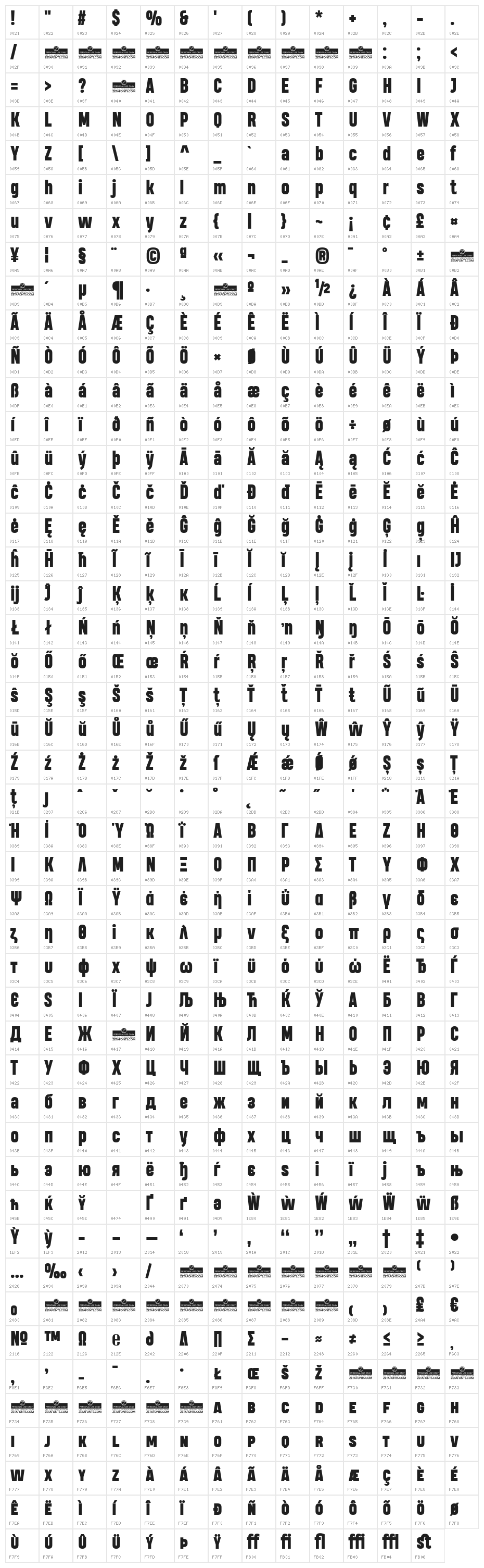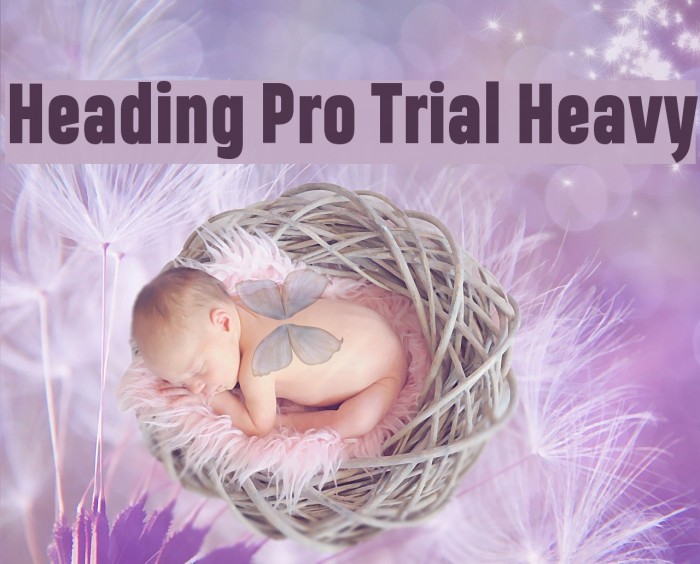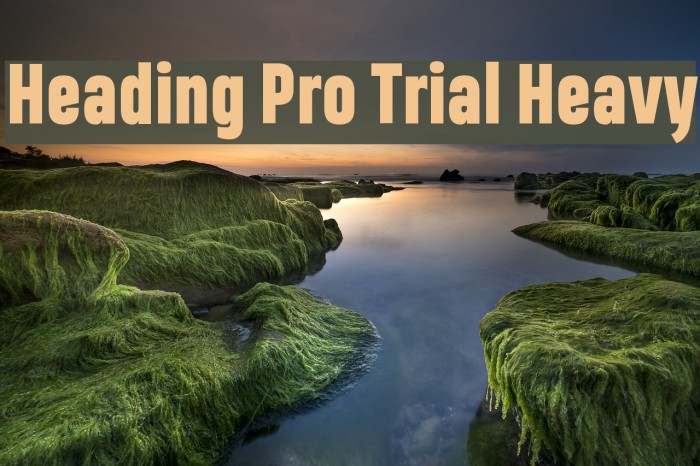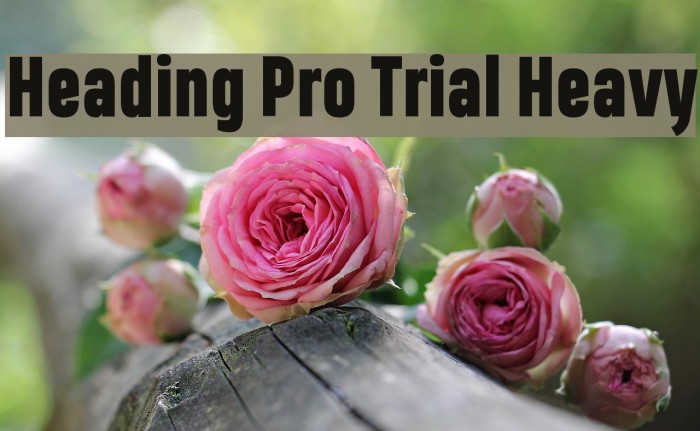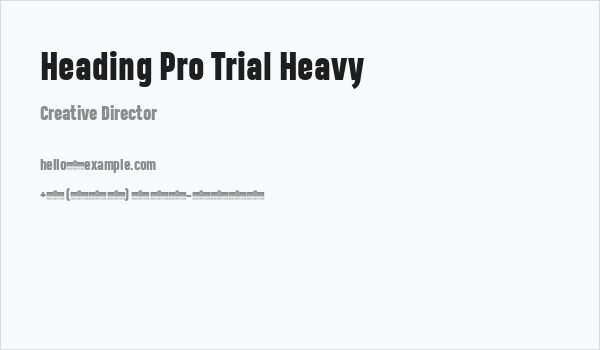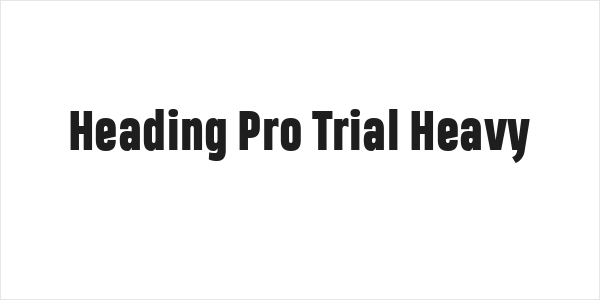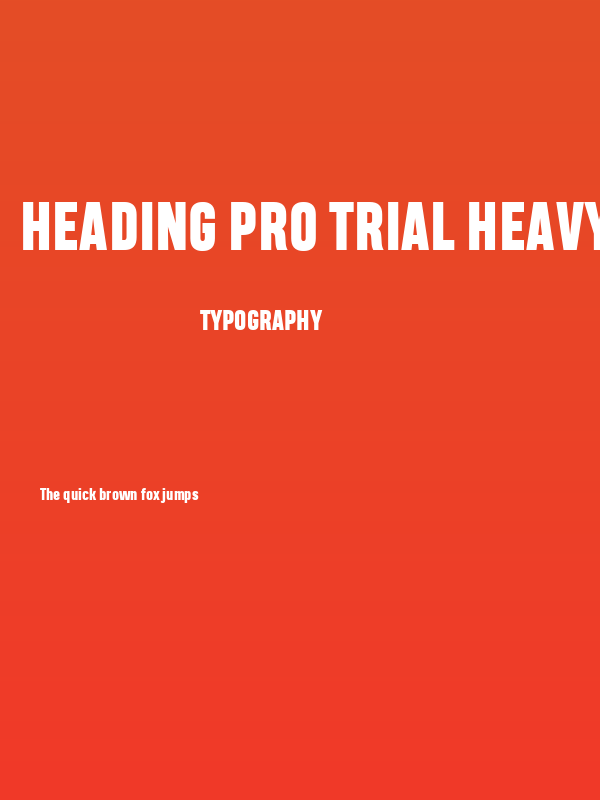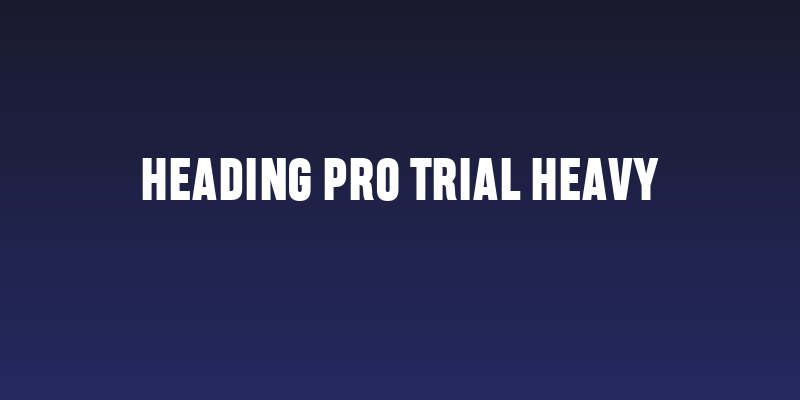
Heading Pro Trial Heavy Font
Heading Pro Trial Heavy Description
This font features a bold and impactful design, characterized by thick, uniform strokes that create a strong visual presence. The uppercase and lowercase letters are designed with a consistent width, giving the font a cohesive and structured appearance. The characters are slightly condensed, enhancing their boldness and making them suitable for attention-grabbing headlines. The numerals and special characters maintain the same robust style, ensuring uniformity across all text elements. This font is ideal for projects that require a commanding and assertive typeface.
Proposed ProjectsIdeal for posters, banners, branding, and any design requiring a strong visual impact.